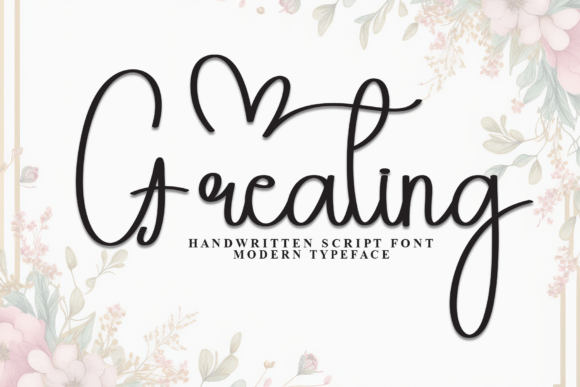
Introducing Greating Font: Elevate Your Designs with Artistic Flair and Contemporary Elegance
In the world of typography, fonts play a crucial role in conveying the tone and personality of a brand or design. Among the numerous fonts available, Greating Font stands out for its unique blend of artistic flair and contemporary elegance. This stylish script font is designed to add a creative and sophisticated touch to various design projects, making it an excellent choice for designers and businesses alike.
The Characteristics of Greating Font
Greating Font boasts fluid brush strokes, dynamic curves, and expressive letterforms that capture the essence of hand-painted calligraphy with a modern twist. Its natural flow and vibrant character make it an ideal choice for designs that require a touch of elegance and sophistication. The font’s unique features include:
- Fluid brush strokes: Giving the font a natural, hand-painted look
- Dynamic curves: Adding a sense of movement and fluidity to the letterforms
- Expressive letterforms: Conveying a sense of personality and emotion
Uses of Greating Font
Greating Font is a versatile font that can be used in various design projects, including:
- Logos: Adding a touch of elegance and sophistication to brand identities
- Invitations: Creating beautiful and unique wedding invitations, event invitations, and more
- Packaging: Elevating product packaging with a creative and eye-catching design
- Social media graphics: Adding a touch of personality and style to social media posts and graphics
The Benefits of Using Greating Font
Greating Font offers several benefits to designers and businesses, including:
- Unique and creative designs: Setting your designs apart from the rest
- Elegance and sophistication: Adding a touch of luxury and refinement to your designs
- Versatility: Suitable for various design projects and applications
- Easy to read: Despite its artistic nature, the font remains easy to read and understand
Tips for Using Greating Font Effectively
To get the most out of Greating Font, consider the following tips:
- Use it as a headline font: Greating Font is perfect for headlines and titles, where its artistic flair can shine
- Pair it with a simple font: Balance out the design by pairing Greating Font with a simple, clean font for body text
- Experiment with colors: Greating Font looks stunning in a variety of colors, so don’t be afraid to experiment and find the perfect hue
- Use it sparingly: While Greating Font is beautiful, it can be overwhelming if overused. Use it sparingly to create a lasting impact
Greating Font is a stylish script font that offers a unique blend of artistic flair and contemporary elegance. Its fluid brush strokes, dynamic curves, and expressive letterforms make it an excellent choice for designers and businesses looking to add a creative and sophisticated touch to their designs. With its versatility, elegance, and ease of use, Greating Font is sure to become a staple in any designer’s font library.